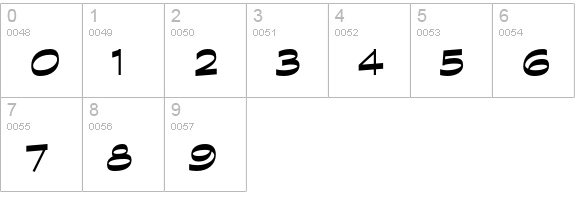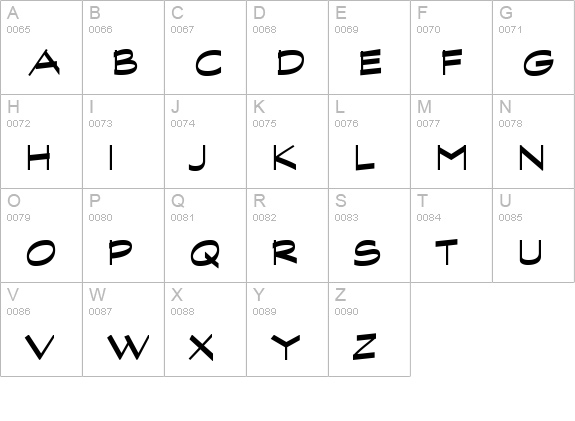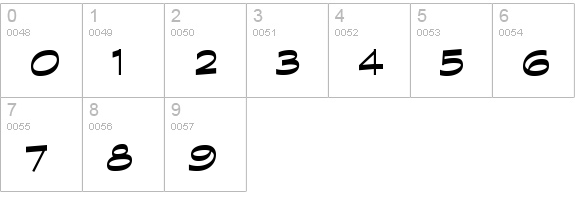
Graphite Std Bold is a strong, high-contrast variant in the Graphite typeface family \xE2\x80\x94 well suited to headlines, attention-grabbing titles, and strong calls-to-action.
Graphite Std Bold is a modern and striking typeface that exudes confidence and strength. With its bold weight and sleek design, this font is perfect for making a bold statement in any project. Whether you're designing a powerful logo, eye-catching headlines, or attention-grabbing posters, Graphite Std Bold is sure to leave a lasting impression. And the best part? It's completely free to download at FontsMarket.com, so you can easily add this versatile font to your collection without breaking the bank. Don't miss out on the opportunity to enhance your designs with the impactful presence of Graphite Std Bold.